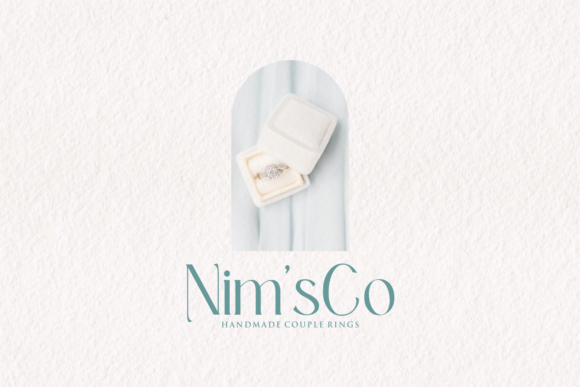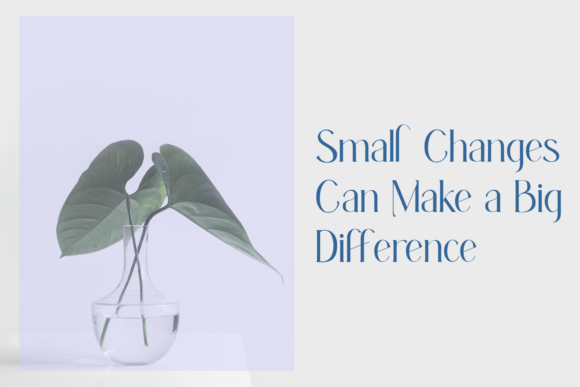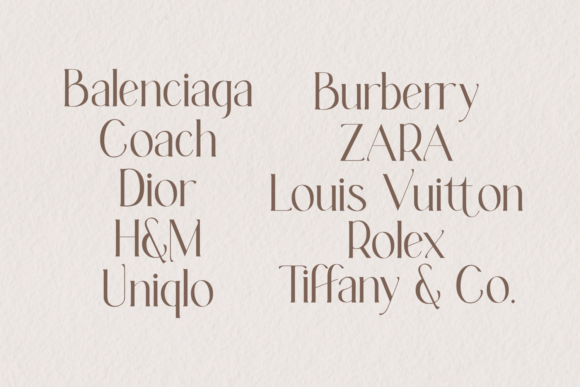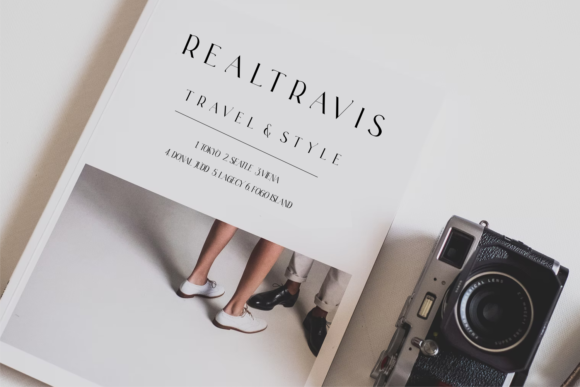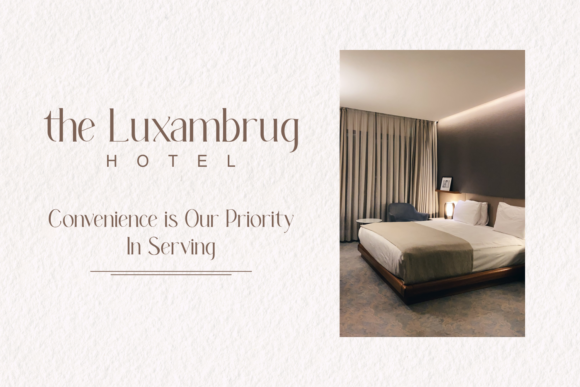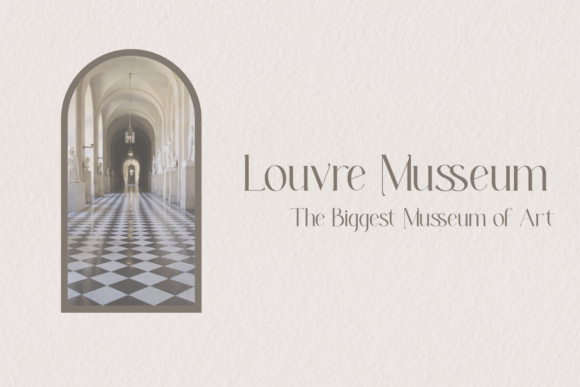
Introducing FeedBack Font: Elevate Your Crafting Ideas with Elegance
Are you a designer, crafter, or DIY enthusiast looking for a font that can add a touch of sophistication to your projects? Look no further than FeedBack Font, an elegant serif font designed to elevate a wide range of crafting ideas. From cards and invitations to branding, labels, and more, FeedBack Font is the perfect addition to your creative toolkit.
The Characteristics of FeedBack Font
FeedBack Font is a beautifully crafted serif font that exudes elegance and refinement. Its classic design features subtle flourishes and delicate lines, making it perfect for projects that require a touch of sophistication. The font is highly versatile, allowing you to use it for a variety of applications, from digital designs to print materials.
Why Choose FeedBack Font?
So, why should you choose FeedBack Font for your next project? Here are just a few reasons:
- Elegance**: FeedBack Font adds a touch of elegance to any project, making it perfect for designers and crafters who want to create sophisticated and refined designs.
- Versatility**: The font is highly versatile, allowing you to use it for a wide range of applications, from cards and invitations to branding and labels.
- Easy to Read**: FeedBack Font is highly legible, making it easy to read and understand, even at small sizes.
- Unique**: The font’s unique design ensures that your projects will stand out from the crowd, making it perfect for designers and crafters who want to create something truly special.
How to Use FeedBack Font in Your Projects
Using FeedBack Font in your projects is easy. Here are a few ideas to get you started:
- Cards and Invitations**: Use FeedBack Font to create beautiful cards and invitations for special occasions, such as weddings, birthdays, and holidays.
- Branding**: Add a touch of elegance to your brand with FeedBack Font. Use it for logos, packaging, and marketing materials.
- Labels**: Use FeedBack Font to create beautiful labels for your products or crafts.
- Digital Designs**: Use FeedBack Font in your digital designs, such as social media graphics, blog posts, and website headers.
Tips for Getting the Most Out of FeedBack Font
Here are a few tips for getting the most out of FeedBack Font:
- Experiment with Different Sizes**: FeedBack Font looks great at a variety of sizes, so don’t be afraid to experiment to find the perfect size for your project.
- Pair it with Other Fonts**: FeedBack Font pairs well with a variety of other fonts, so try pairing it with a sans-serif font for a contrasting look.
- Use it for Headings and Titles**: FeedBack Font is perfect for headings and titles, so use it to add a touch of elegance to your project.
In conclusion, FeedBack Font is a beautiful and elegant serif font that is perfect for designers and crafters who want to add a touch of sophistication to their projects. Its versatility, legibility, and unique design make it a great addition to any creative toolkit. Whether you’re creating cards, branding, labels, or digital designs, FeedBack Font is sure to elevate your project and leave a lasting impression.